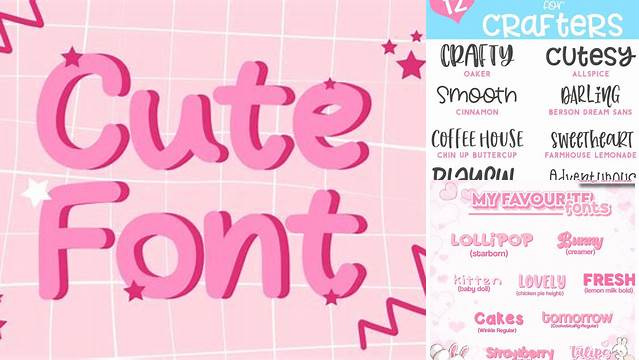
Cute Fonts: Names & How To Use Them
Hey guys! Ever wondered what makes a font look super cute? Or maybe you're on the hunt for the perfect font name to spice up your designs? You've come to the right place! Let’s dive deep into the world of cute fonts and their names, exploring everything from what makes them adorable to how you can use them in your projects. We'll cover tons of ground, so buckle up and get ready to unleash your inner font fanatic!
What Makes a Font 'Cute'?
So, what exactly makes a font cute? Is it the bubbly curves? The playful strokes? Or maybe the whimsical feel they bring to your text? Well, it’s a mix of all these things! Cute fonts often have rounded edges, soft lines, and a generally friendly appearance. Think of them as the puppies and kittens of the font world – instantly lovable and full of personality. The charm in these fonts usually comes from their informal and approachable nature, making them perfect for a variety of uses, from greeting cards to website headers. Let's be real, who doesn't love something that brings a smile to their face? When you're choosing a cute font, consider the overall vibe you're going for. Do you want something super playful and energetic, or something a little more sweet and gentle? The right cute font can make all the difference in setting the mood for your project. The psychology behind font choice is fascinating – it's amazing how a simple change in typeface can completely transform the way your message is perceived!
Popular Categories of Cute Fonts
When we talk about cute fonts, we're not just talking about one specific style. There's a whole universe of cute fonts out there, each with its unique charm and appeal. Let's break down some of the most popular categories. First up, we have the handwritten fonts. These fonts mimic the look of actual handwriting, giving your text a personal and intimate feel. They're perfect for adding a touch of warmth to invitations, thank-you notes, and even blog posts. Then, there are the script fonts, with their elegant swirls and flowing lines. These fonts can range from playful to sophisticated, making them incredibly versatile. Think of them as the ballerinas of the font world – graceful and captivating. Next, we have the display fonts, which are designed to grab attention. These fonts often have unique shapes and details that make them stand out from the crowd. They're great for headlines, logos, and anything else where you want to make a statement. Finally, we have the sans-serif fonts with rounded terminals. These fonts are clean and modern, but the rounded edges give them a softer, more approachable feel than traditional sans-serif fonts. Each category brings something special to the table, so experimenting is key!
Cute Handwritten Fonts
Handwritten fonts are like a warm hug in the form of text. They bring a personal, authentic touch to any project, making them a go-to choice for designers and creatives. When you use a cute handwritten font, it’s like you’re adding a little piece of yourself into the design. These fonts often mimic the natural flow of handwriting, complete with slight imperfections and variations that make them feel genuine. Think about it – a handwritten note feels so much more personal than a typed one, right? The same principle applies to font choices. One of the reasons handwritten fonts are so popular is their versatility. They work beautifully in a variety of contexts, from wedding invitations to social media graphics. Imagine a handwritten font on a thank-you card – it adds an extra layer of sincerity. Or consider using one in your logo to give your brand a more approachable and human feel. When choosing a cute handwritten font, pay attention to the details. Look for fonts with natural-looking letterforms and a good rhythm between the letters. You want something that feels organic and not overly stylized. Also, think about readability. A super elaborate font might look pretty, but if it’s hard to read, it defeats the purpose. Finding the right balance between style and legibility is key. Experiment with different weights and styles to see what works best for your project. Some handwritten fonts are bold and playful, while others are delicate and elegant. The possibilities are endless!
Cute Script Fonts
Script fonts are the elegant dancers of the font family, with their flowing lines and graceful curves. They add a touch of sophistication and charm to any design, making them perfect for projects that need a hint of class. When you use a cute script font, you’re instantly elevating the visual appeal of your text. These fonts often mimic the look of calligraphy, with sweeping strokes and intricate details. Think of them as the perfect choice for wedding invitations, formal announcements, and high-end branding. But script fonts aren't just for formal occasions. They can also be playful and whimsical, depending on the style. A cute script font with a bit of bounce and personality can be perfect for greeting cards, party invitations, and even children’s books. The key is to choose a font that matches the tone and mood of your project. One of the great things about script fonts is their ability to create a focal point. A well-chosen script font can instantly draw the eye and add a touch of elegance to your design. They work particularly well for headlines and titles, where you want to make a statement. However, it’s important to use script fonts sparingly. Too much script can become overwhelming and hard to read. Use them strategically to highlight key words and phrases. When selecting a cute script font, consider the overall legibility. Some script fonts can be quite intricate, so make sure the text is still easy to read, especially at smaller sizes. Also, think about the spacing between the letters. Script fonts often have unique letter connections, so proper spacing is crucial for a polished look.
Cute Display Fonts
Display fonts are the life of the party in the font world! They’re designed to grab attention and make a statement, perfect for when you want your text to really pop. When you use a cute display font, you're essentially saying, “Hey, look at me!” These fonts often have unique shapes, playful details, and a whole lot of personality. Think of them as the fonts you'd use for posters, logos, and headlines – anything that needs to stand out. What makes a display font cute? It could be rounded edges, quirky letterforms, or a whimsical overall feel. The key is that they're fun and engaging. These fonts aren't meant for long blocks of text; they're designed to be used sparingly, in short bursts that make a big impact. One of the best things about display fonts is their versatility. They can range from bold and playful to sweet and charming, making them suitable for a wide range of projects. Imagine a cute display font on a birthday card, a children’s book cover, or a fun social media graphic. The possibilities are endless! When choosing a cute display font, think about the message you want to convey. Are you going for a fun and energetic vibe, or something more sweet and gentle? The font should reflect the overall tone of your project. Also, consider the context in which the font will be used. Will it be on a screen or in print? Will it be used at a large size or a small size? These factors can influence which font is the best fit. Remember, display fonts are all about making an impression, so don't be afraid to get creative and experiment with different styles!
Cute Sans-Serif Fonts with Rounded Terminals
Sans-serif fonts are often seen as clean and modern, but when you add rounded terminals, they take on a whole new level of cuteness. These fonts are like the friendly neighbors of the font world – approachable, easy to get along with, and just generally pleasant to be around. A cute sans-serif font with rounded terminals softens the edges, making the text feel warmer and more inviting. Think of them as the perfect choice for websites, apps, and branding materials that need a friendly touch. These fonts are versatile enough to be used in both headlines and body text, making them a great all-around option. What makes a sans-serif font with rounded terminals so cute? It’s the subtle details that make the difference. The rounded edges create a softer, more playful feel than the sharp corners of traditional sans-serif fonts. This makes them ideal for projects that need to convey a sense of warmth and approachability. Imagine a cute sans-serif font on a children’s website, a friendly welcome message, or a casual social media post. They're perfect for creating a positive and inviting vibe. When choosing a cute sans-serif font with rounded terminals, consider the overall legibility. While the rounded edges add a touch of charm, you still want the text to be easy to read, especially at smaller sizes. Look for fonts with clear letterforms and good spacing. Also, think about the weight of the font. A lighter weight can feel more delicate and airy, while a heavier weight can feel more substantial and grounded. The right weight can make all the difference in the overall impact of your design.
Names of Popular Cute Fonts
Okay, guys, let’s get into the fun part – the names! There are so many cute fonts out there, and some of them have names that are just as adorable as the fonts themselves. Knowing the names of popular fonts can be super helpful when you're trying to find the perfect one for your project. Plus, it’s just fun to learn about the creative names designers come up with! We'll cover a range of styles, from handwritten to script to sans-serif, so you'll have a good starting point for your font adventures. Think of this section as your cheat sheet to the world of cute font names. We'll talk about what makes these fonts so popular and where you might use them. Whether you're designing a logo, creating social media graphics, or just looking to spice up your personal projects, knowing these names will give you a leg up. And who knows, you might even find a new favorite font along the way! So, let's dive in and explore the world of cute font names. Get ready to add some serious font-spiration to your design toolkit. It's time to level up your font game!
Cute Font Names for Logos
When it comes to logos, choosing the right font is crucial. It's the face of your brand, so you want something that not only looks good but also conveys the right message. If your brand has a playful, friendly, or whimsical vibe, a cute font name can be the perfect choice. But what makes a font cute enough for a logo? It often comes down to personality and character. You want a font that stands out, but also feels approachable and inviting. Think about brands like Disney or Hello Kitty – their logos use fonts that are instantly recognizable and convey a sense of fun and joy. So, what are some cute font names that work well for logos? Handwritten and script fonts can add a personal touch, while rounded sans-serif fonts can create a modern yet friendly feel. It really depends on your brand's identity and target audience. The key is to find a font that is both memorable and legible. After all, you want people to be able to read your logo! Another thing to consider is scalability. Your logo font needs to look good whether it’s on a business card or a billboard. Some fonts that look cute at a large size might become difficult to read when they're scaled down. When you're choosing a cute font name for your logo, take the time to experiment and try out different options. Get feedback from others and see how the font looks in various contexts. The perfect logo font is out there – it just takes a little searching!
Cute Font Names for Websites
Your website is your online storefront, so you want to make a good first impression. And guess what? Fonts play a huge role in that! A cute font name can add personality and charm to your website, making it more inviting and engaging for visitors. But what makes a font cute for a website? It's not just about aesthetics; it's also about readability and user experience. You want a font that looks good but is also easy to read on screens. Think about it – if your website is full of beautiful but illegible fonts, people are going to click away in frustration. So, when you're choosing a cute font name for your website, prioritize legibility. Sans-serif fonts with rounded terminals are often a great choice because they're clean, modern, and easy on the eyes. Handwritten and script fonts can also work well, but use them sparingly, like for headings or accents. Remember, the goal is to create a cohesive and visually appealing design that enhances the user experience. Another important factor to consider is font pairing. You'll likely need to choose more than one font for your website – one for headings and another for body text, for example. Pairing a cute font name with a more neutral font can create a balanced and professional look. When you're choosing fonts for your website, think about your brand's personality. Do you want to convey a sense of fun and playfulness, or something more sophisticated and elegant? The right cute font name can help you achieve the desired effect. Don't be afraid to experiment and try out different combinations until you find the perfect fit!
The Psychology of Cute Fonts
Ever wondered why some fonts make you feel all warm and fuzzy inside? It's not just about aesthetics; there's actually some psychology behind cute fonts! Our brains are wired to respond to certain shapes and styles, and cute fonts often tap into these innate preferences. Think about it – cute fonts often have rounded edges, soft lines, and a playful feel. These elements evoke feelings of warmth, friendliness, and approachability. They're like a visual hug! When you use a cute font name, you're essentially sending a subconscious message to your audience. You're saying,